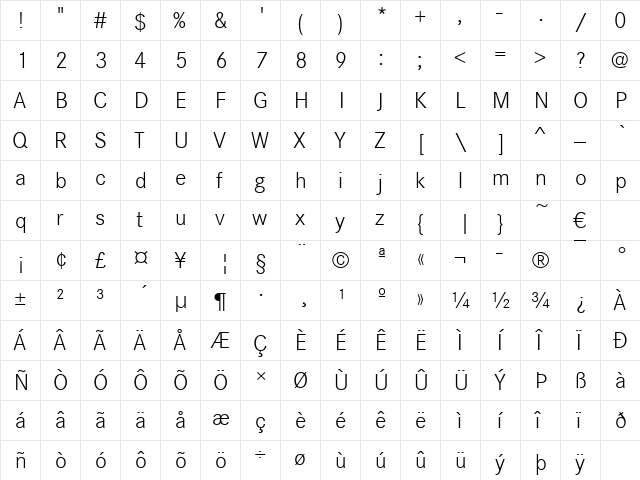
CorpoSLig Regular
Design Context for CorpoSLig Typeface
CorpoSLig is a composed and adaptable typeface that performs quietly and consistently across a wide range of design contexts.